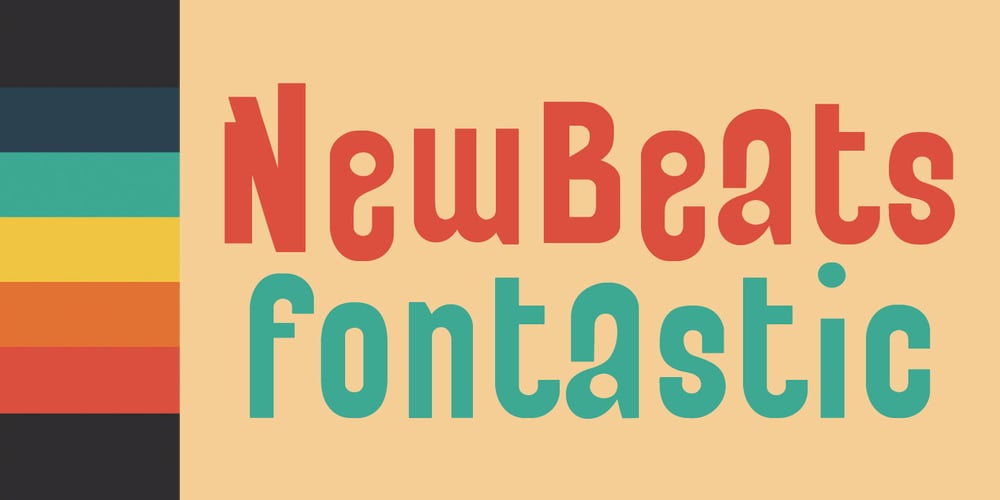
Newbeats Font Family was designed by Coert De Decker and published by Kustomtype. Newbeats contains 1 styles and family package options. The “Newbeats” typeface came about after watching the film A Hard Day’s Night starring the Beatles, hence the name “Newbeats”. The font was on the poster of the film and based on these letters I designed a full alphabet, complete with ligatures. The font has been fully digitized and fine-tuned to make it possible to use in all software applications and graphics programs. Whomever sees the font for the first time would think this is a totally new font; it has a modern look despite the mid-60s feel that I have tried to preserve. This characterful and playful typeface can be used for all kinds of graphic applications, both for vintage style design and in modern designs. The “Newbeats” font is a real hit! For those who want to come up with a surprising style, look and feel, this is highly recommended. Logos, posters, advertisements, branding, magazines, t-shirts and other hip designs will look much more attractive! A must for those who want to give their designs a big twist. Play and win with Newbeats and you will be amazed by the result. What are you waiting for?